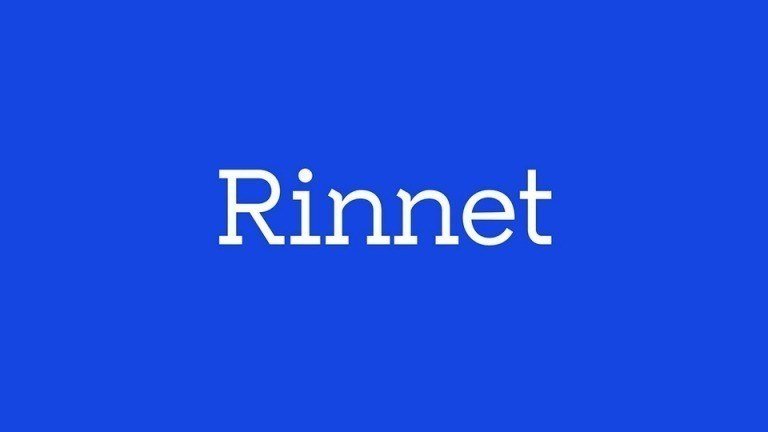
Rinnet Slab Serif Font Free
Rinnet Font is a modern, unique and elegant slab serif font with solid font files. it is based on the compact solid font, by combining a variety of styles. Suitable for Logo, greeting cards, quotes, posters, branding, name card, stationary, design title, blog header, art quote, typography.
Rinnet Font also suitable for art, modern envelope lettering or book design, happening style like handdrawn design or watercolor design theme, craft design, any DIY project, book title, wedding font, pop vintage design, or any purpose to make our art/design project look pretty and trendy.